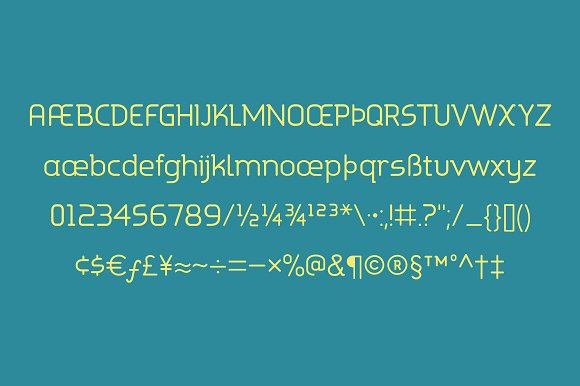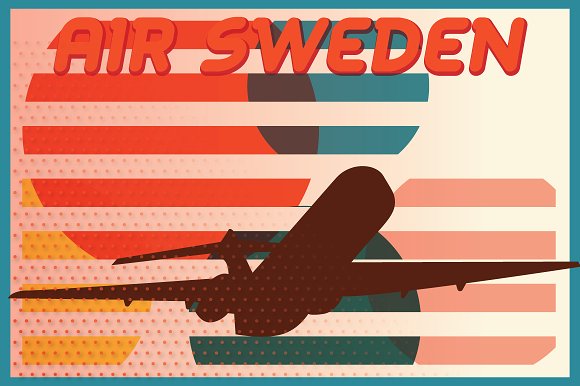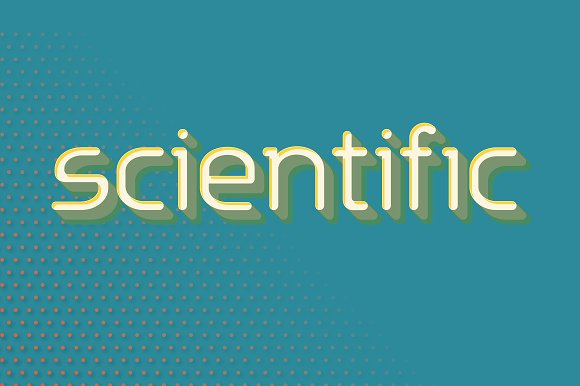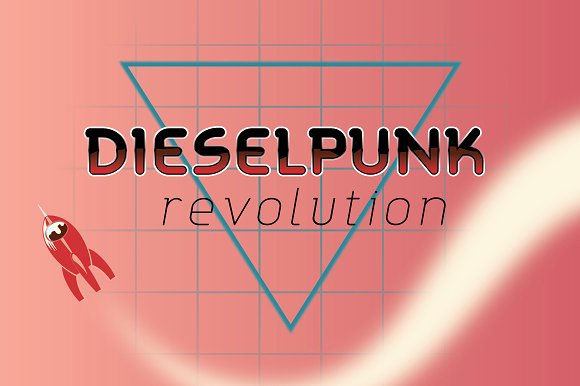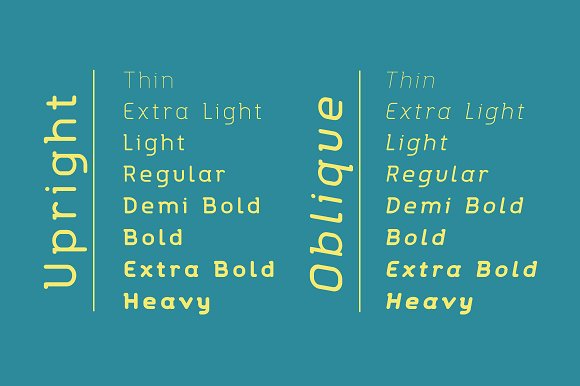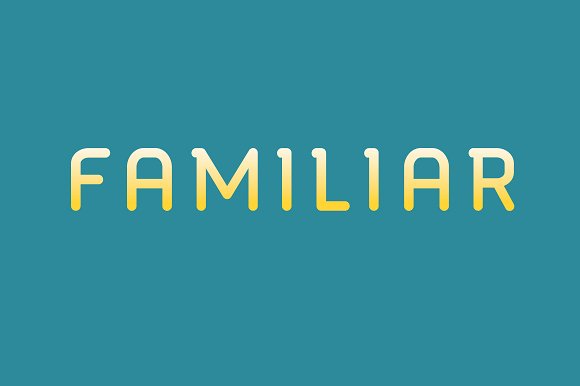
Aldin Font: Elevate Your Designs with Geometric Elegance
In the realm of typography, the right font can make or break a design. For those seeking a stylish and modern typeface that brings a touch of sophistication to their projects, Aldin Font stands out as an exceptional choice. Based on geometric forms, Aldin is not only visually appealing but also versatile, making it suitable for a wide range of applications.
The Essence of Aldin Font
Aldin is characterized by its clean lines and geometric shapes, which lend it a contemporary and elegant feel. This font family is meticulously designed to cater to various design needs, from headlines and subheads to short paragraphs. Its unique character makes it particularly appealing for use in magazines, advertisements, packaging, and logotypes, especially within the fashion and tech industries.
Versatility Across Industries
One of the standout features of Aldin Font is its adaptability across different sectors. For the fashion industry, the thinner weights of Aldin bring a level of sophistication and luxury that is hard to match. In contrast, the tech industry benefits from Aldin’s modern and sleek appearance, which perfectly encapsulates innovation and forward-thinking. Moreover, its use in advertisements and magazines ensures that any text stands out, capturing the reader’s attention with its geometric elegance.
The Aldin Family: A Range of Options
The Aldin Font family boasts an impressive range of 16 fonts, offering designers a plethora of choices to suit their specific needs. This extensive collection includes various weights, from thinner options ideal for body text and finer details, to thicker weights that add impact and contrast to headlines and titles. The availability of such a wide range within a single font family makes Aldin incredibly versatile, allowing for the creation of complex and visually appealing typographic hierarchies.
Applications of Aldin Font
Aldin Font’s applications are vast and varied. Here are a few key areas where it excels:
- Magazines and Journals: Aldin’s range allows for the creation of striking headlines and readable body text, making it perfect for editorial design.
- Advertisements: The font’s geometric elegance captures attention and adds a professional touch to ad copy.
- Packaging: Aldin’s modern look makes it suitable for product packaging, especially for brands in the fashion and tech sectors.
- Logotypes: The variety within the Aldin family enables designers to craft unique and memorable logos.
Why Choose Aldin Font?
Choosing Aldin Font for your design projects comes with several advantages:
- Modern Aesthetic: Its geometric basis gives it a contemporary look that appeals to modern design sensibilities.
- Versatility: With 16 fonts in the family, designers have the flexibility to create layered and nuanced typographic designs.
- Industry Adaptability: Aldin suits a range of industries, from fashion and tech to editorial and advertising.
Aldin Font offers a unique blend of style, modernity, and versatility, making it an invaluable asset for designers and crafters. Its geometric foundation provides a clean and elegant appearance that can elevate a wide range of design projects. Whether you’re working on a magazine, advertisement, product packaging, or logotype, Aldin Font is a reliable choice that can help you achieve your creative vision. With its extensive range of 16 fonts, Aldin ensures that designers have the tools they need to create visually stunning and effective typography.
Incorporating Aldin into your design workflow can significantly enhance the aesthetic appeal and professional quality of your work. As the world of design continues to evolve, having a font like Aldin, which combines geometric elegance with versatility, is indispensable. So, explore the possibilities that Aldin Font offers and discover how it can transform your designs.